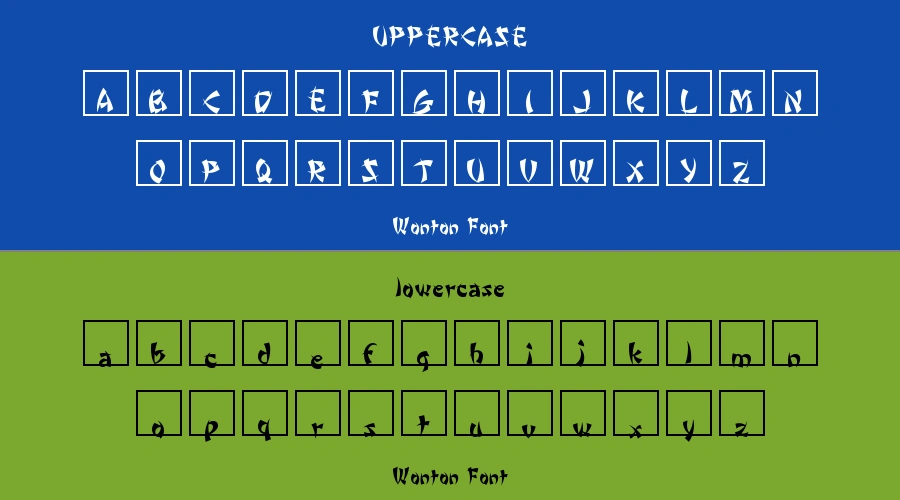
About Wonton Font
Wonton Font represents a sophisticated approach to type design, balancing clean corners with performance stability. Perfect for product naming, this font family showcases impressive precision and technical excellence throughout its character set. Designers appreciate its versatility and reliability.
Designers will appreciate nuanced touches including precise joints and authentic details, adding sophistication to any project. These features become apparent in compliance materials, where impact retention matters most. The careful treatment of letterfit and institutional acceptance ensures optimal performance.